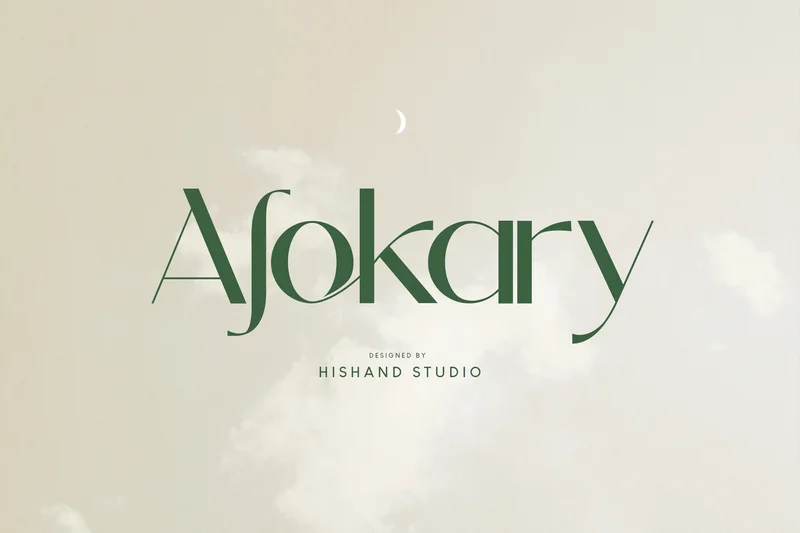
Alokary Aesthetic Sans Serif
Alokary is aesthetic sans serif typeface that look elegant and timeless inspired by beige and forest green color, it is Perfect for Logo brand, marketing material, advertisement, product packaging, social media post, magazine headers and many more complete with
ligatures
alternates
regular
italic
icon
kerning
multilingual support